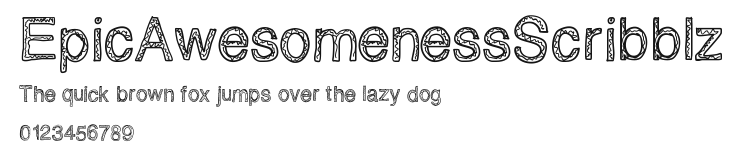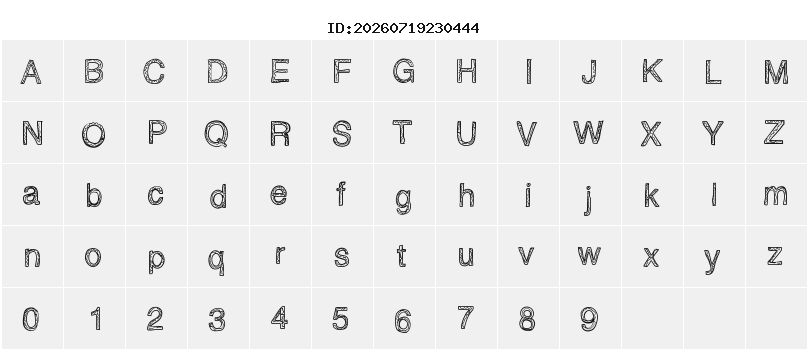
• Font Name: EpicAwesomenessScribblz
• Full Font Name: EpicAwesomenessScribblz
About EpicAwesomenessScribblz.ttf
EpicAwesomenessScribblz.ttf is a modern, elegant sans-serif font designed for ultimate readability and visual harmony. Perfect for branding, headlines, web design, and print materials.